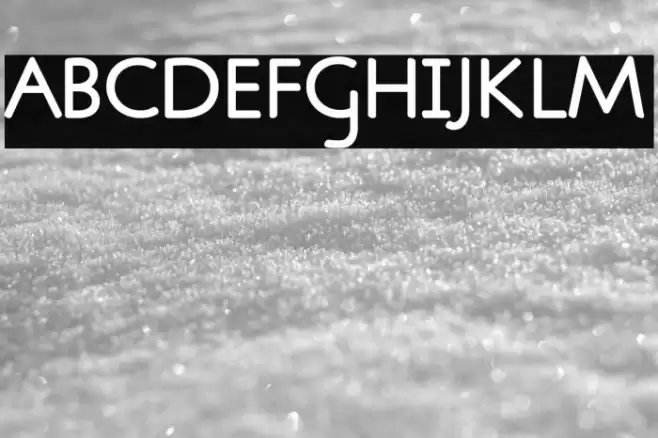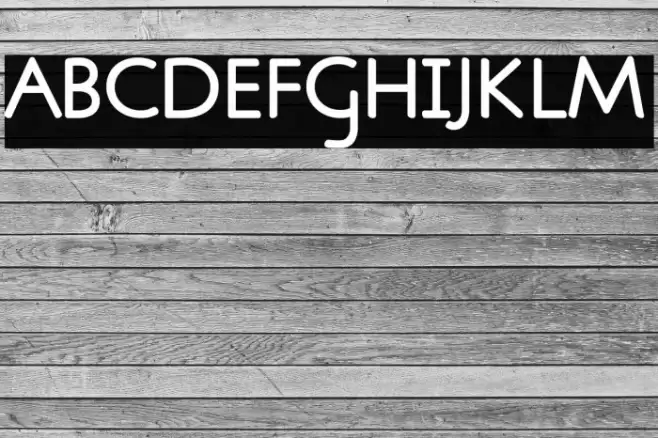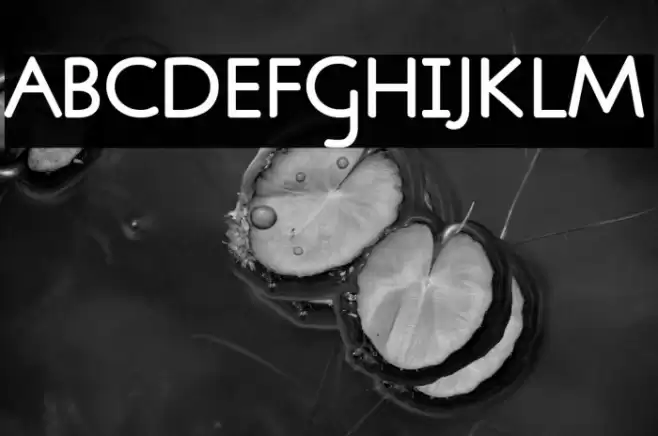
Lilly Font
Lilly Description
This font features a playful and rounded style with a friendly and approachable appearance. The uppercase letters are bold and clear, while the lowercase letters maintain a consistent roundness that adds to the font's charm. The numerals are well-proportioned, ensuring readability. Special characters are designed with the same rounded aesthetic, making them cohesive with the rest of the font. The overall design is modern and versatile, suitable for a variety of uses where a casual yet professional look is desired.
A playful, rounded font with a friendly and modern appearance from Uncategorized fonts.
- Font: Lilly
- Proposed Projects: Ideal for children's books, playful branding, casual invitations, and educational materials.
- Use Case: Headlines, Logos, Informal Text